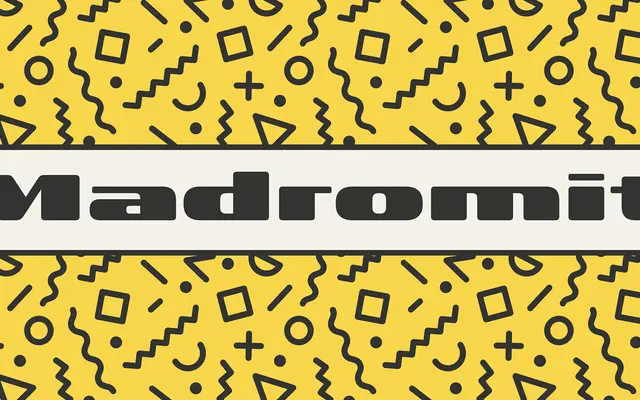
Madromit specimen from Dharma Type
A layered display typeface that fuses 1980s–90s primitive digital aesthetics with classic engraving inline styles, built for colour-stacking workflows.
Constructed on a strict grid with rounded corners, oval bowls and right-angled joints, the design draws directly from early computer advertisement typography. The family ships in five styles conceived as printing plates: a Standard base layer and Fill variants that can be stacked in Photoshop or Illustrator to produce open inline effects in any colour combination. The result sits somewhere between retro pixel-era lettering and decorative engraved display type.
A geometric, grid-based display face with rounded corners and oval bowls referencing early digital aesthetics; the layered inline styles draw from engraving traditions, placing it firmly in the display category.